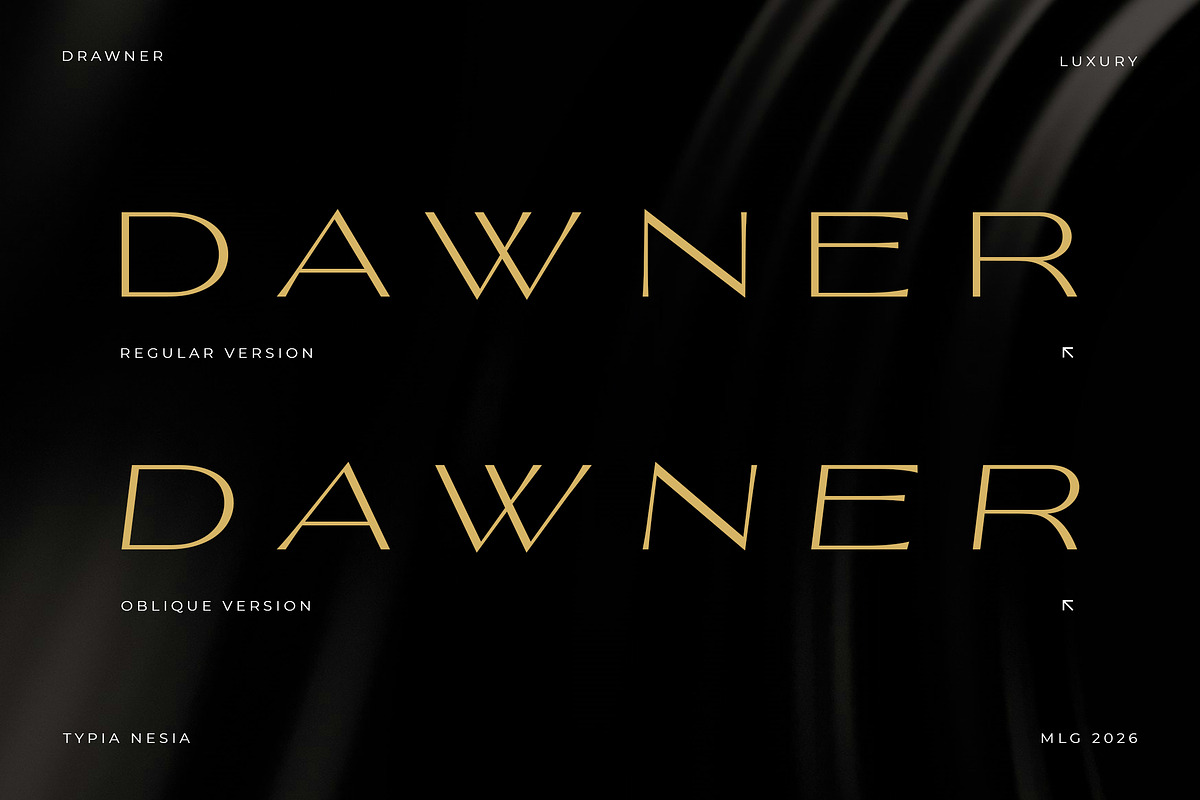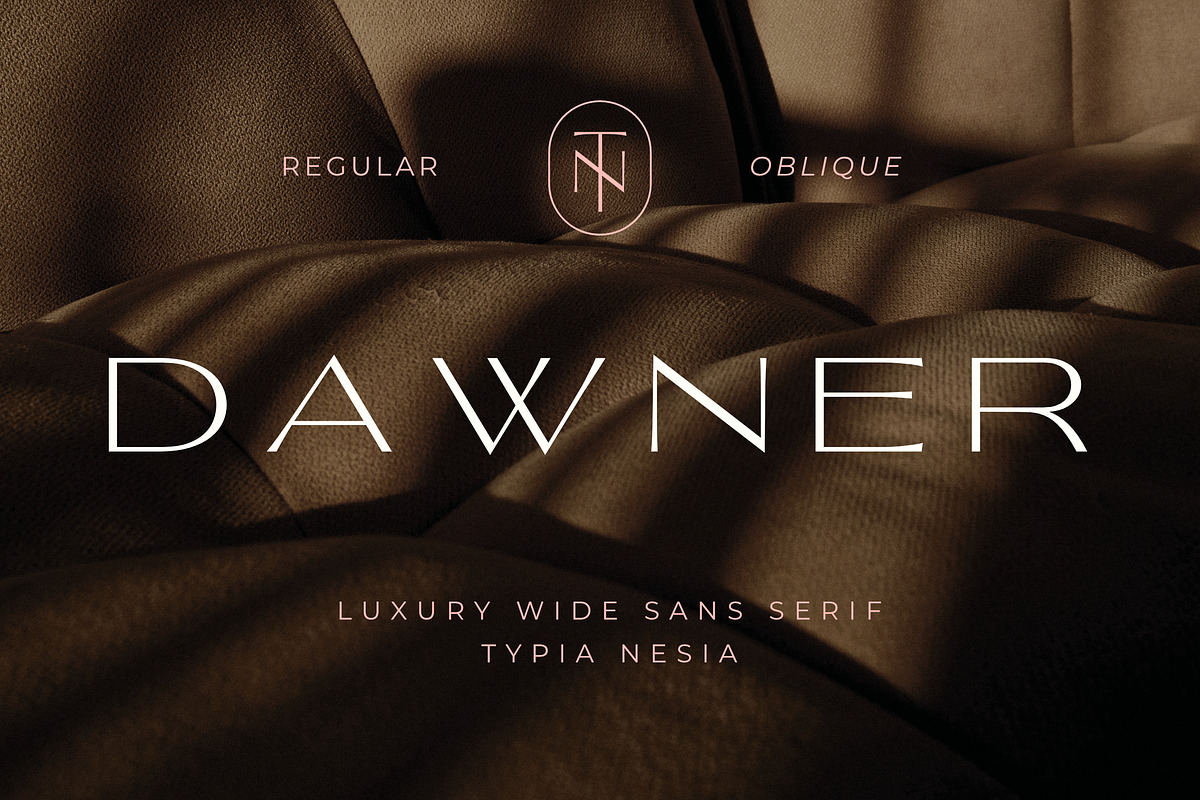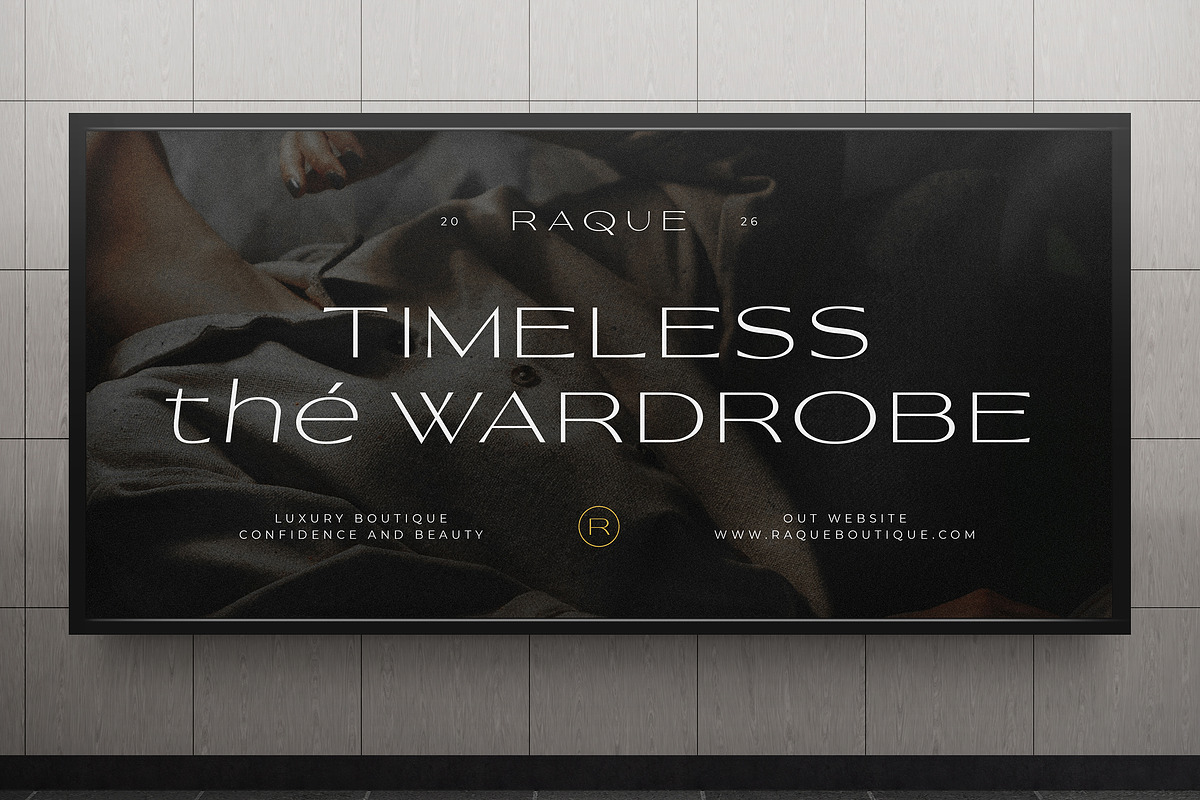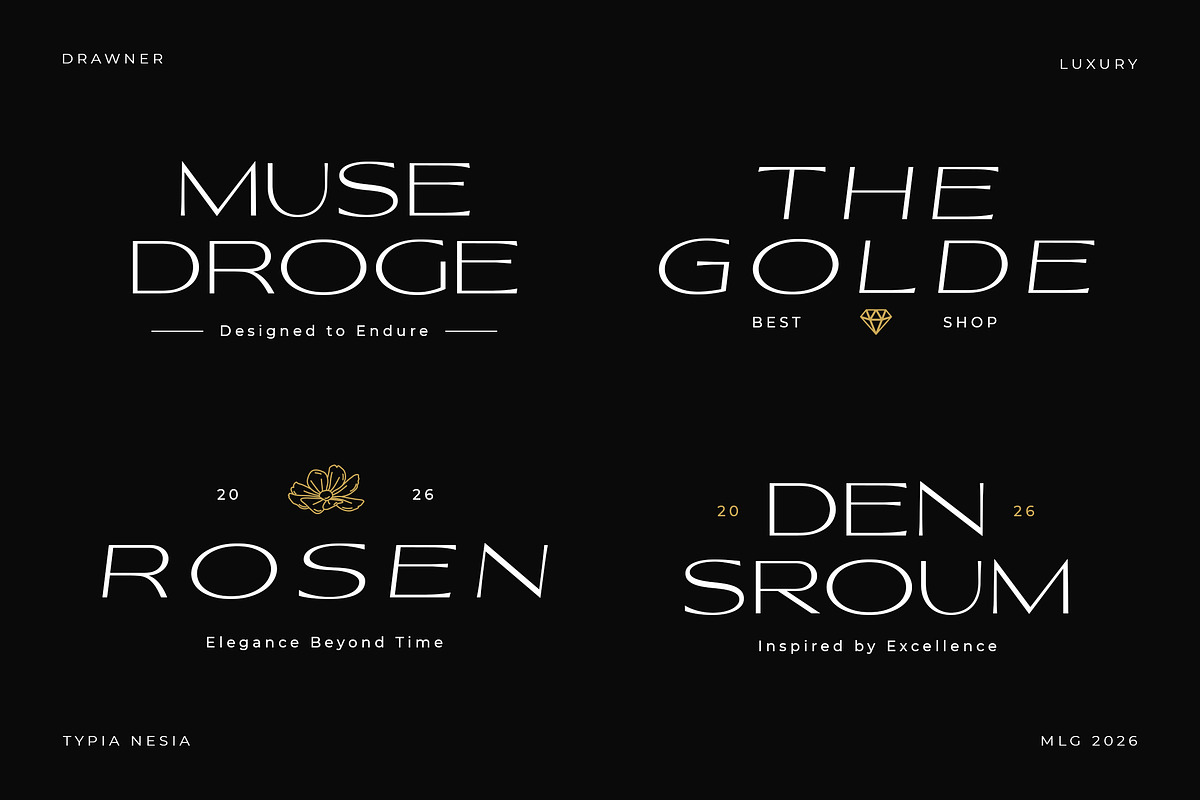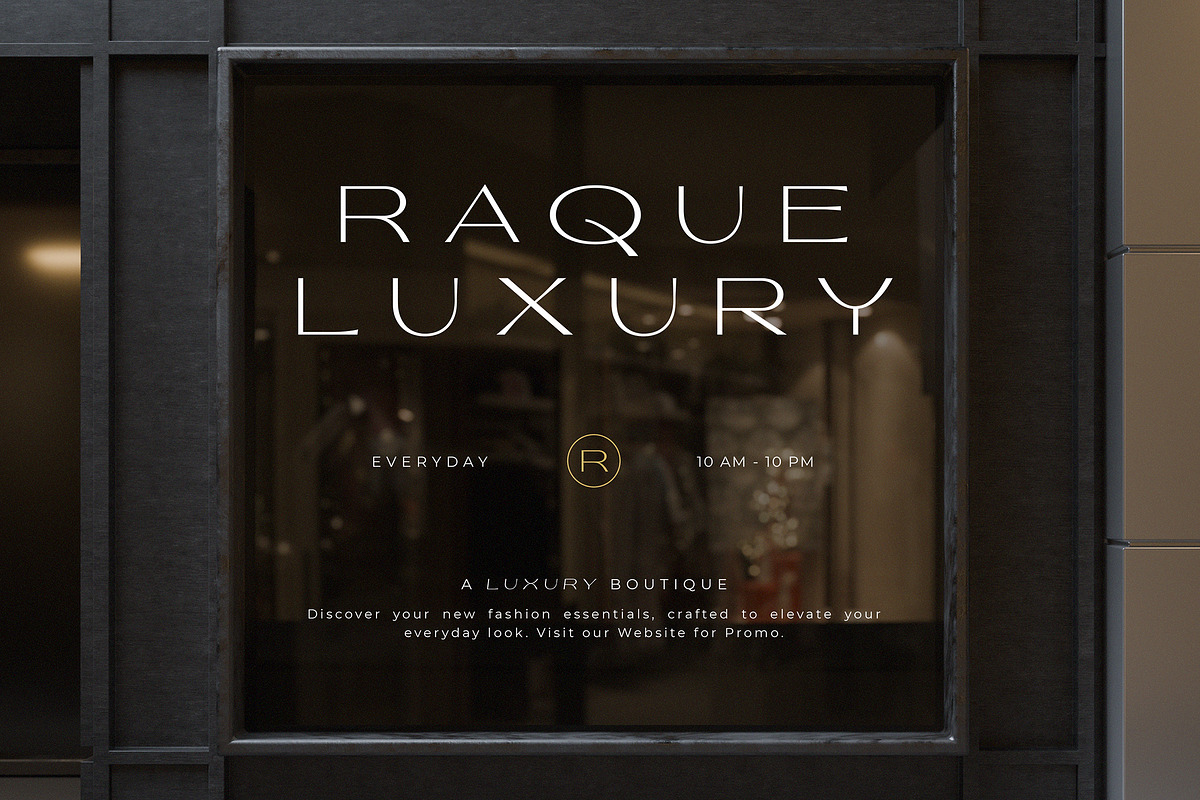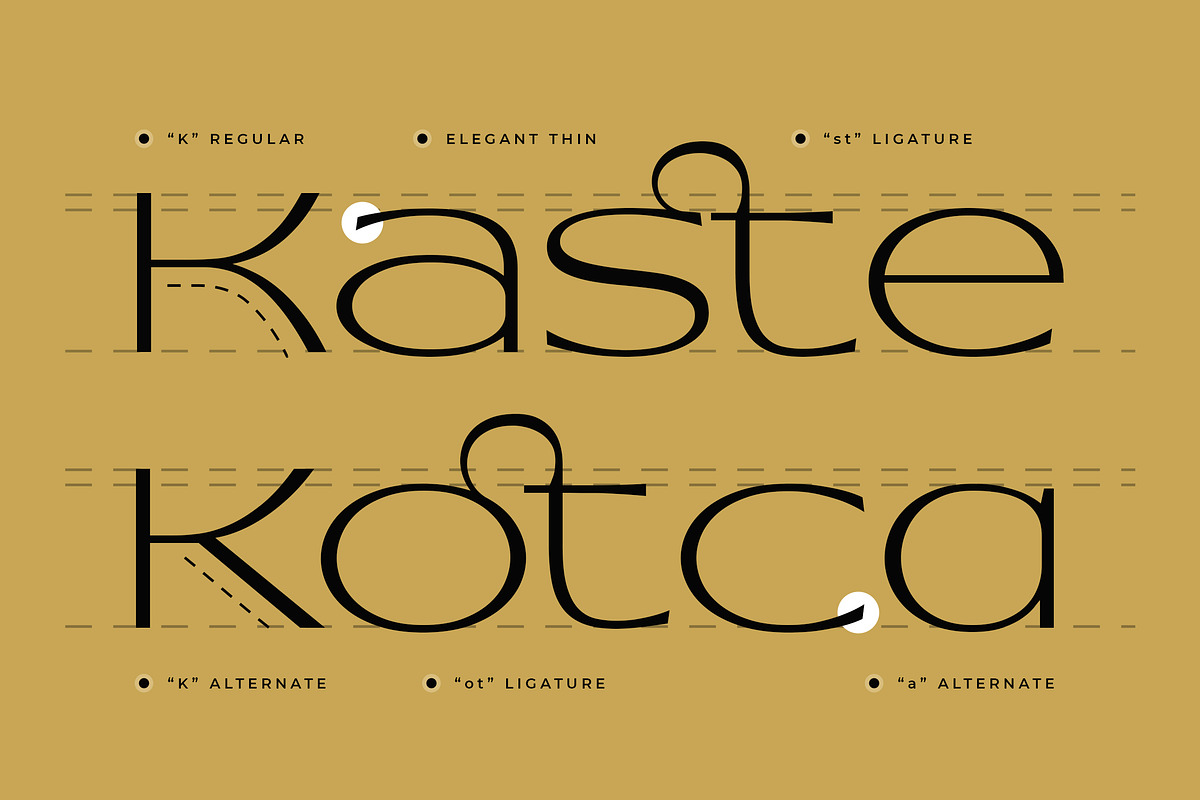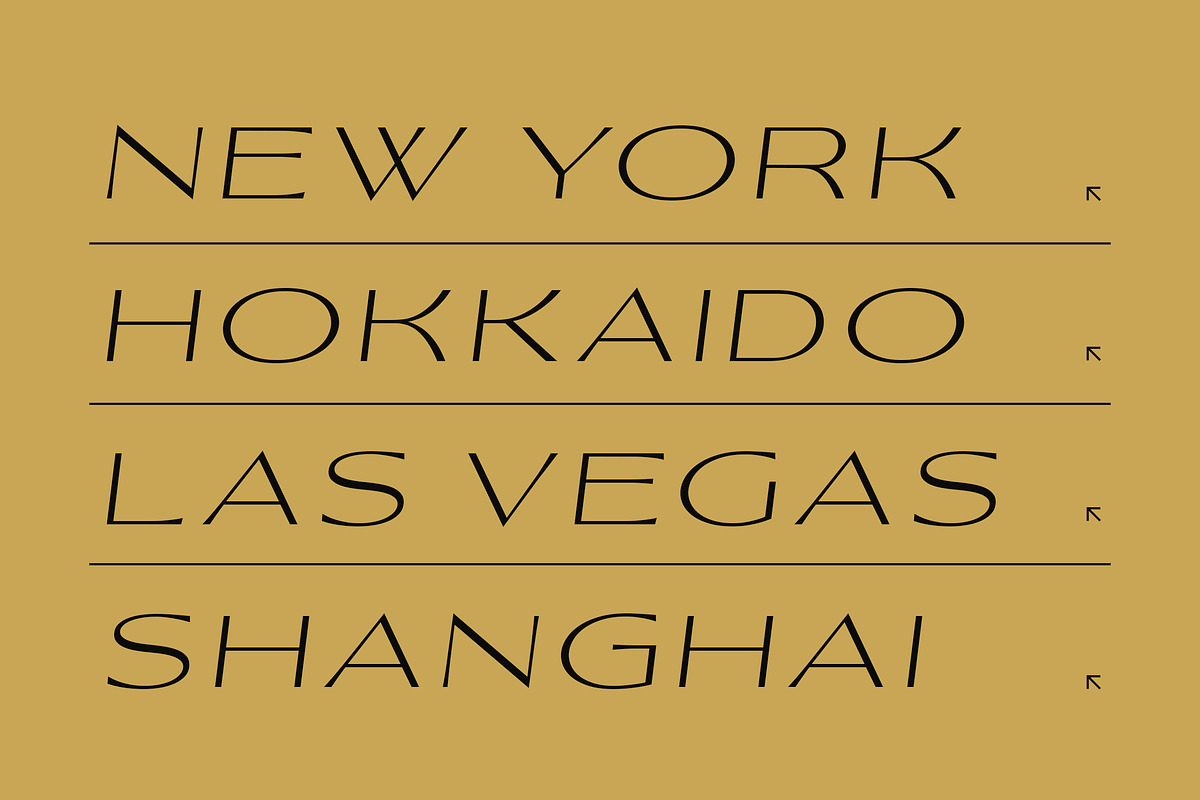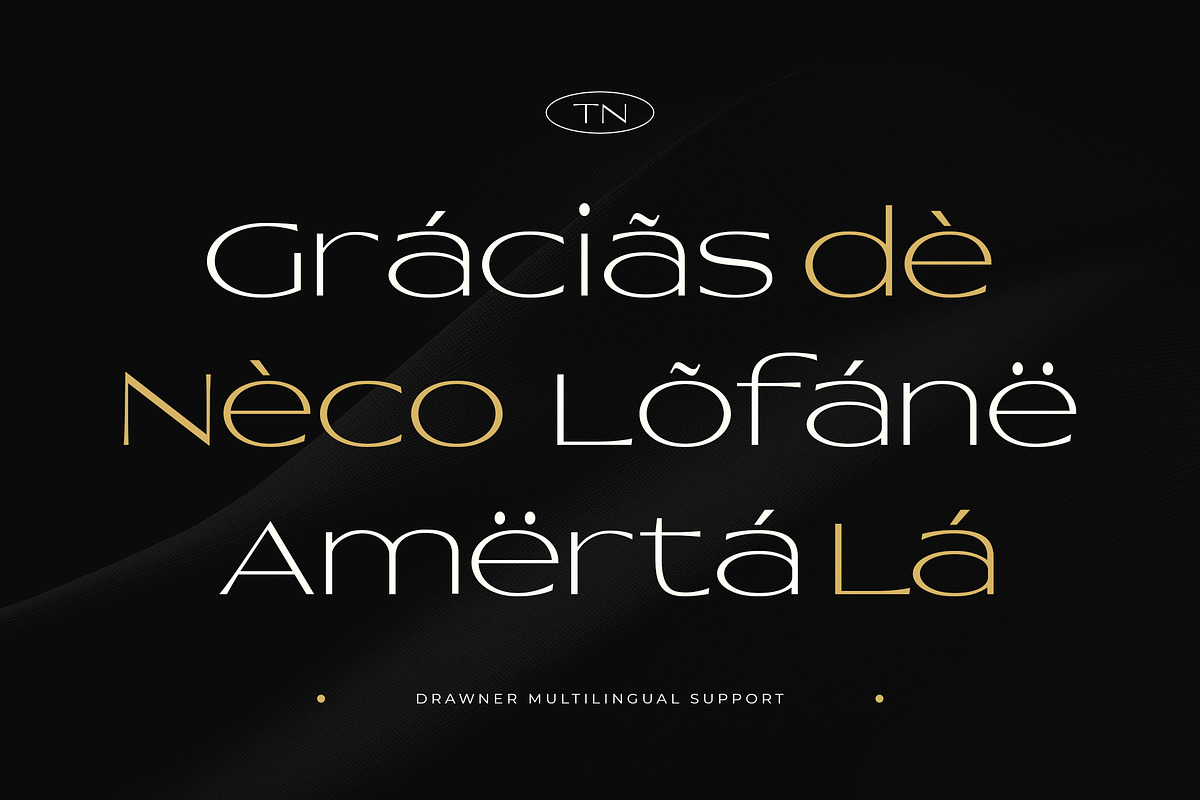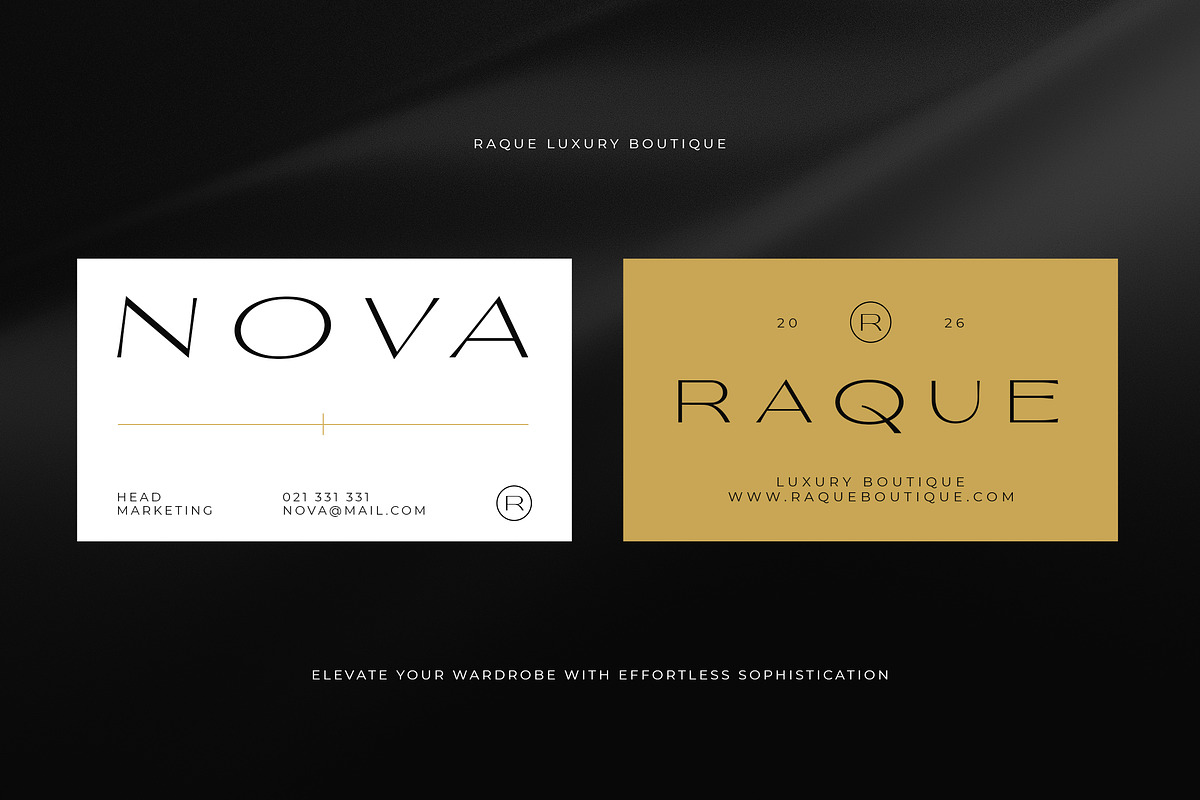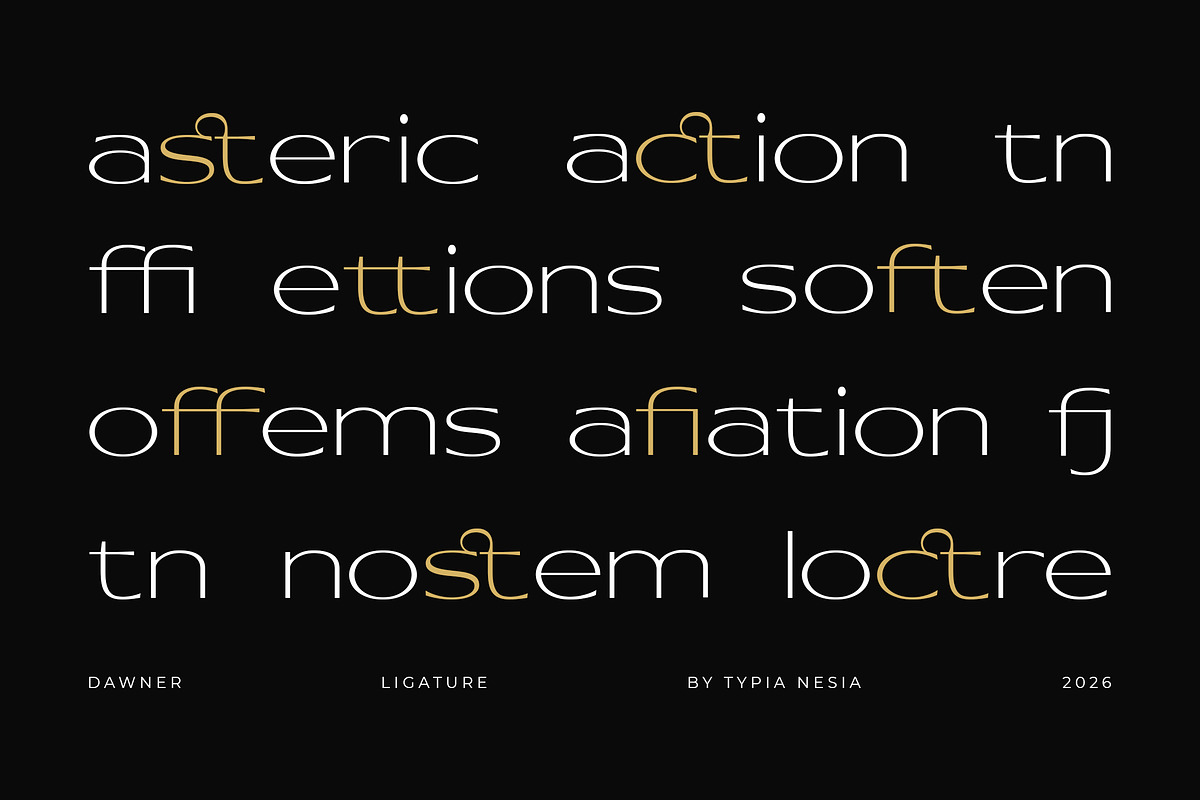
Dawner - Luxury Wide Thin Sans Serif
Dawner - Luxury Wide Sans Serif Font for Premium Branding & Editorial Design
Dawner is a luxury wide sans serif typeface featuring clean geometric construction, generous spacing, refined proportions, and elegant minimalist aesthetics. Designed to elevate premium visual identities, it delivers a sophisticated and timeless appearance that stands out across branding, editorial, fashion, and luxury product design.
Perfect for luxury logos, fashion magazines, cosmetic packaging, hotel branding, architecture studios, jewelry brands, perfume labels, website headers, invitations, and premium marketing materials. It features Regular and Oblique styles, multilingual support, balanced letterforms, and professional-quality spacing, making it versatile and easy to use across a wide range of design needs.
Create elegant brands that communicate confidence, exclusivity, and timeless sophistication with Dawner.